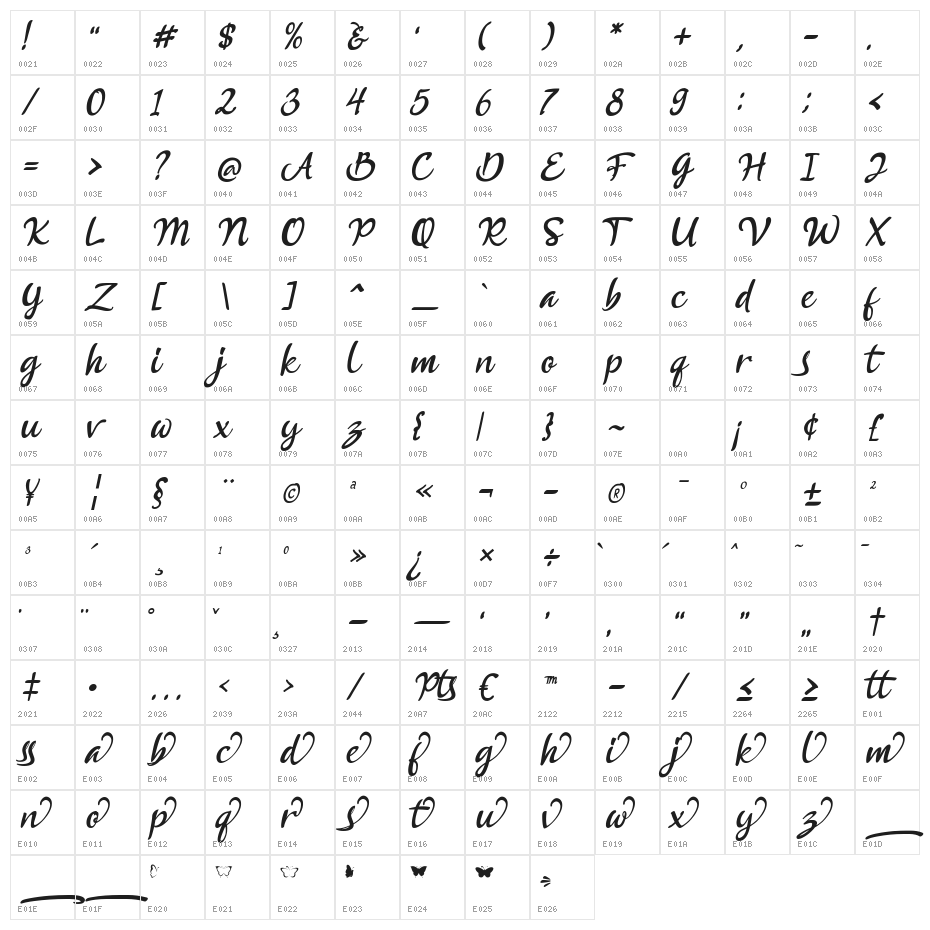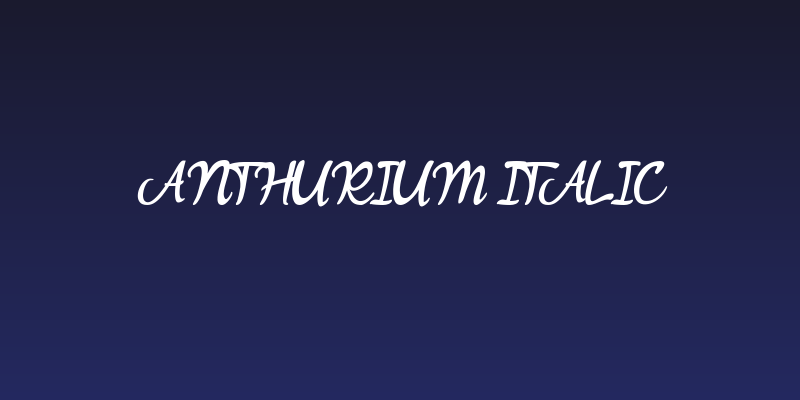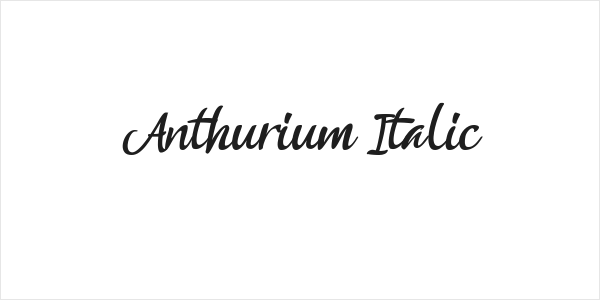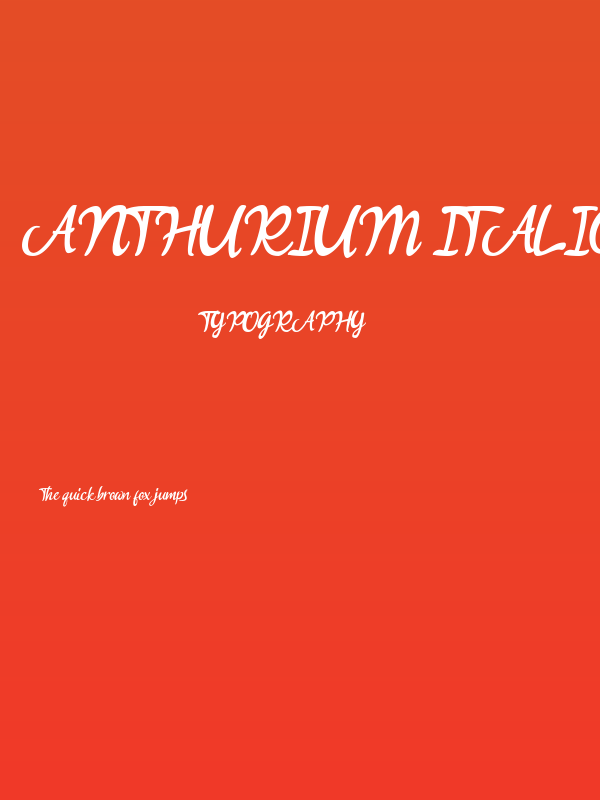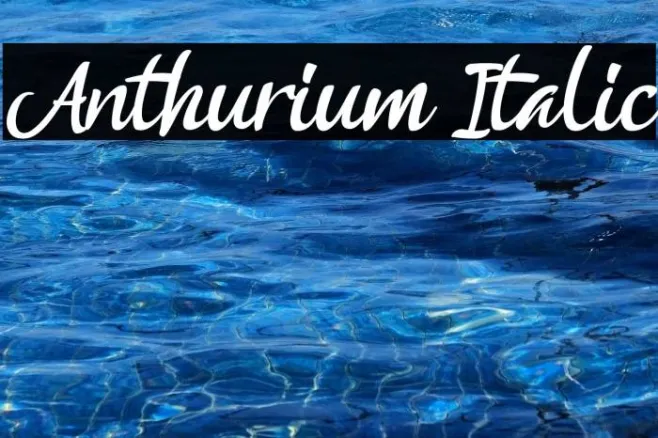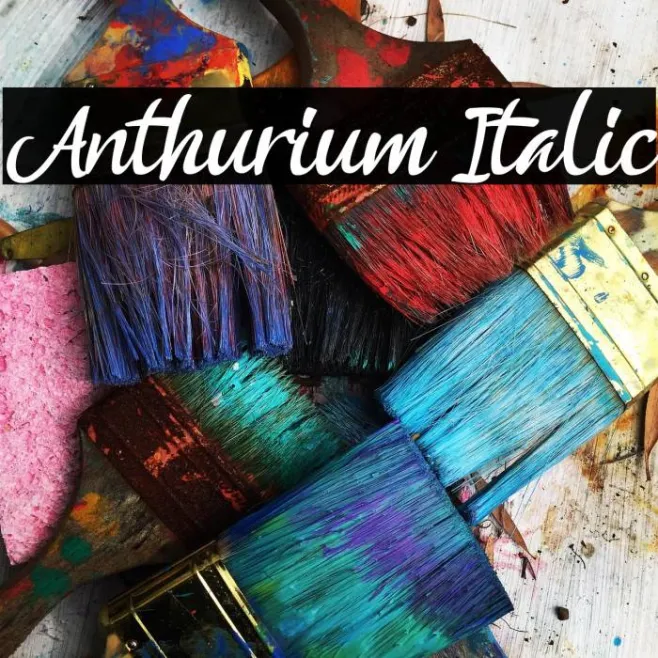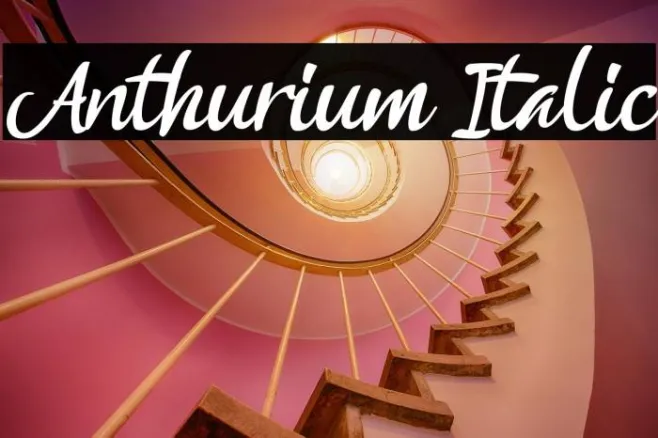
Anthurium Italic Font
Anthurium Italic Description
This font exhibits a dynamic and flowing script style, characterized by its elegant, cursive letterforms. The strokes are smooth and connected, giving it a handwritten appearance that is both sophisticated and approachable. The uppercase letters are bold and prominent, while the lowercase letters maintain a consistent flow, enhancing readability. The numerals and special characters are designed to match the overall aesthetic, ensuring a cohesive look across all text elements. This font is ideal for projects that require a personal touch, such as invitations, greeting cards, or branding materials.